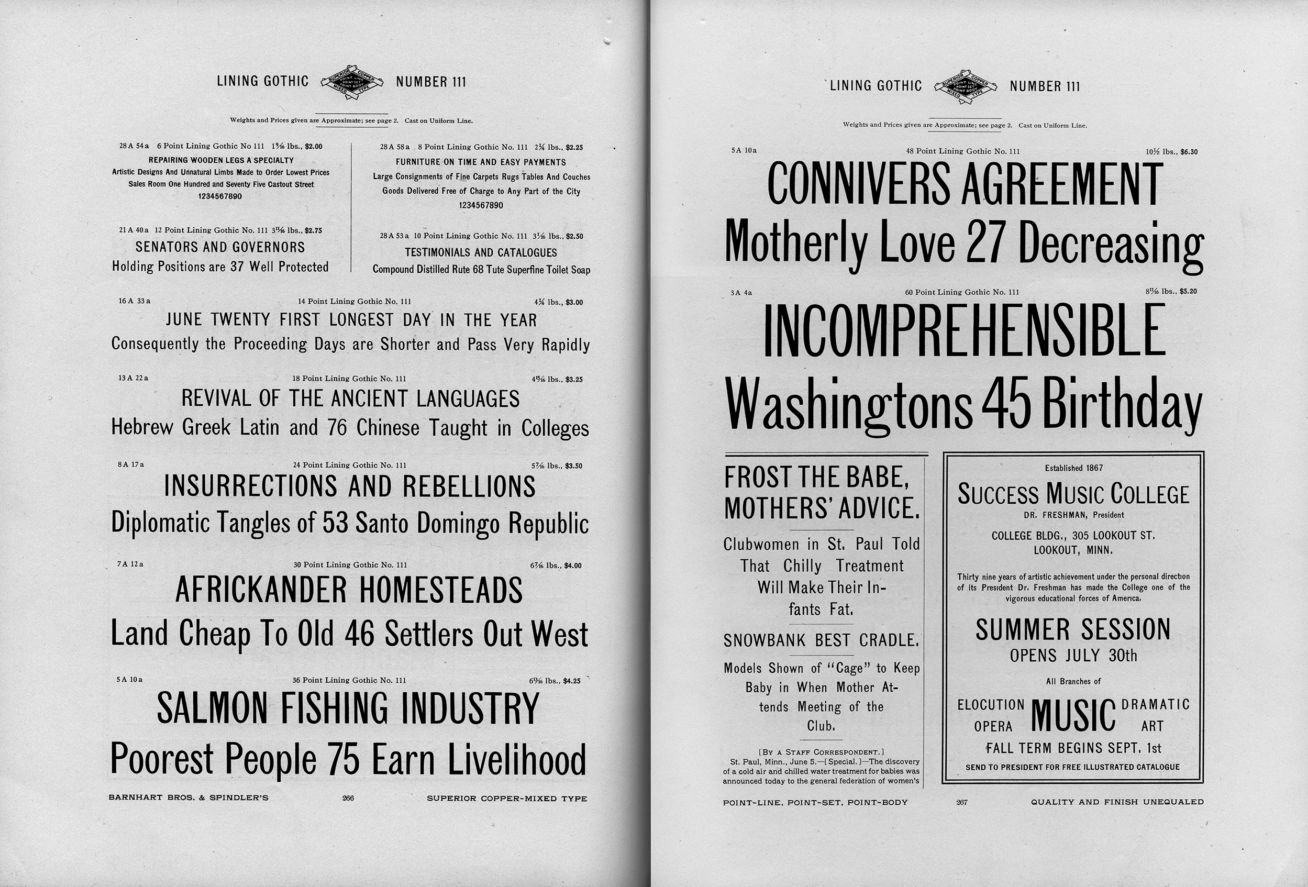
Popular is a modern sans serif font inspired by a page from specimen No. 9 issued by the Barnhart Bros. & Spindler Type Founders in 1907. The font, formerly known as ‘Lining Gothic Number 111’, was created in a single weight, with no Italic style, and displays a host of unusual details across its various cuts. The subtly contrasted letters combine with a condensed appearance to make for an oddly contemporary look, well suited to headlines as well as running text.